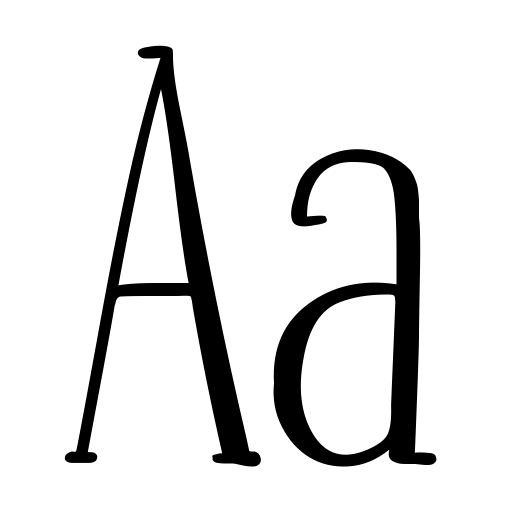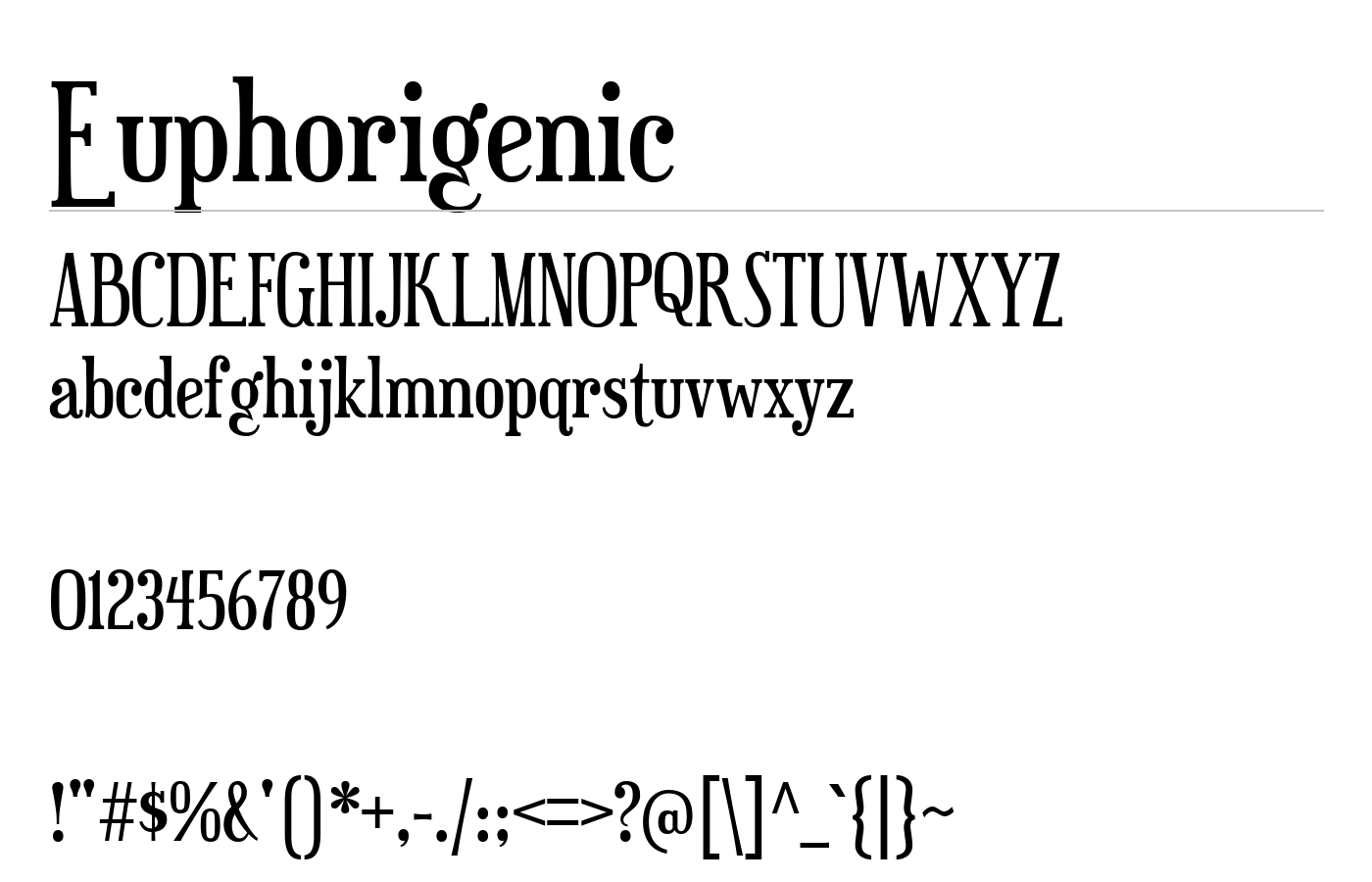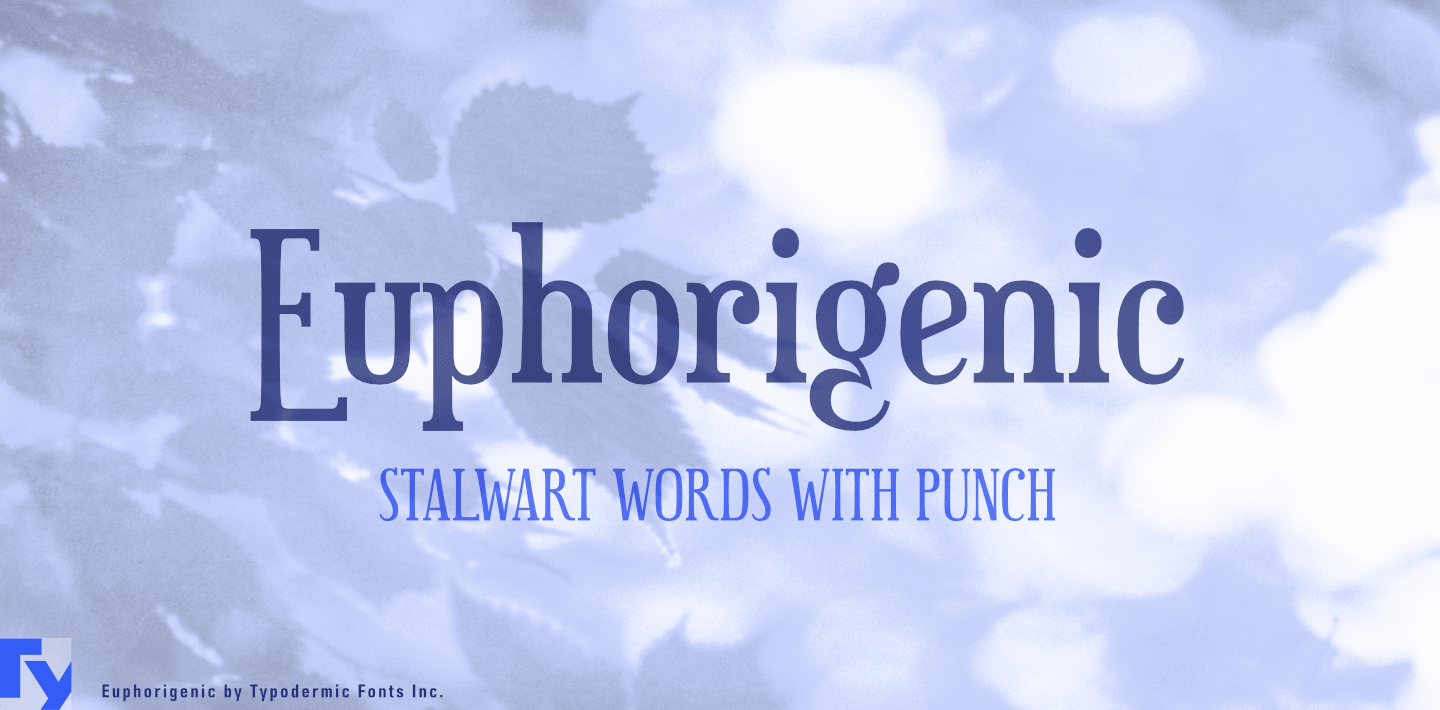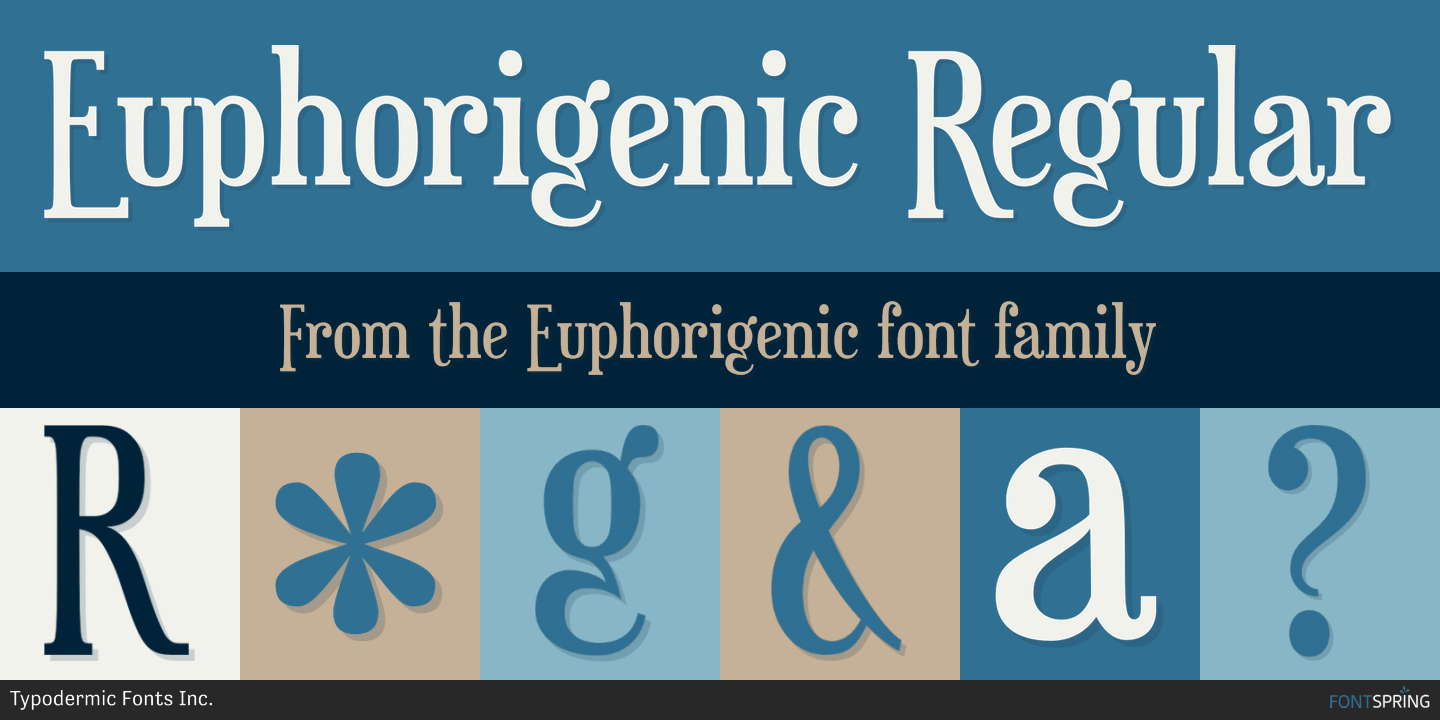
Euphorigenic is a condensed serif font with a strong vertical emphasis and high contrast between thick and thin strokes, giving it a distinctive, elegant look. Its tall, narrow letterforms and unique details, such as the curved tail of the lowercase 'g' and the fine serifs, create a vintage yet refined personality that works beautifully for headlines, editorial design, and luxury branding where a sophisticated but bold impact is desired.
Euphorigenic
About Euphorigenic
| Font family | Euphorigenic |
| Designer | Ray Larabie |